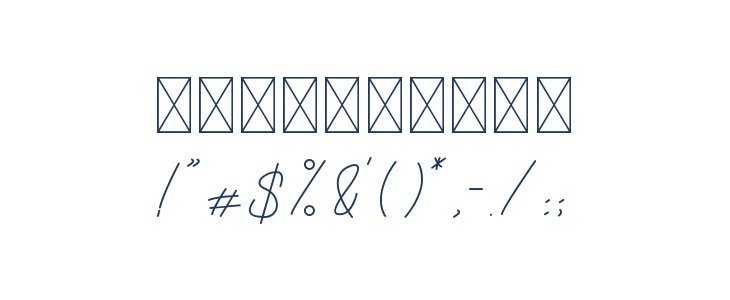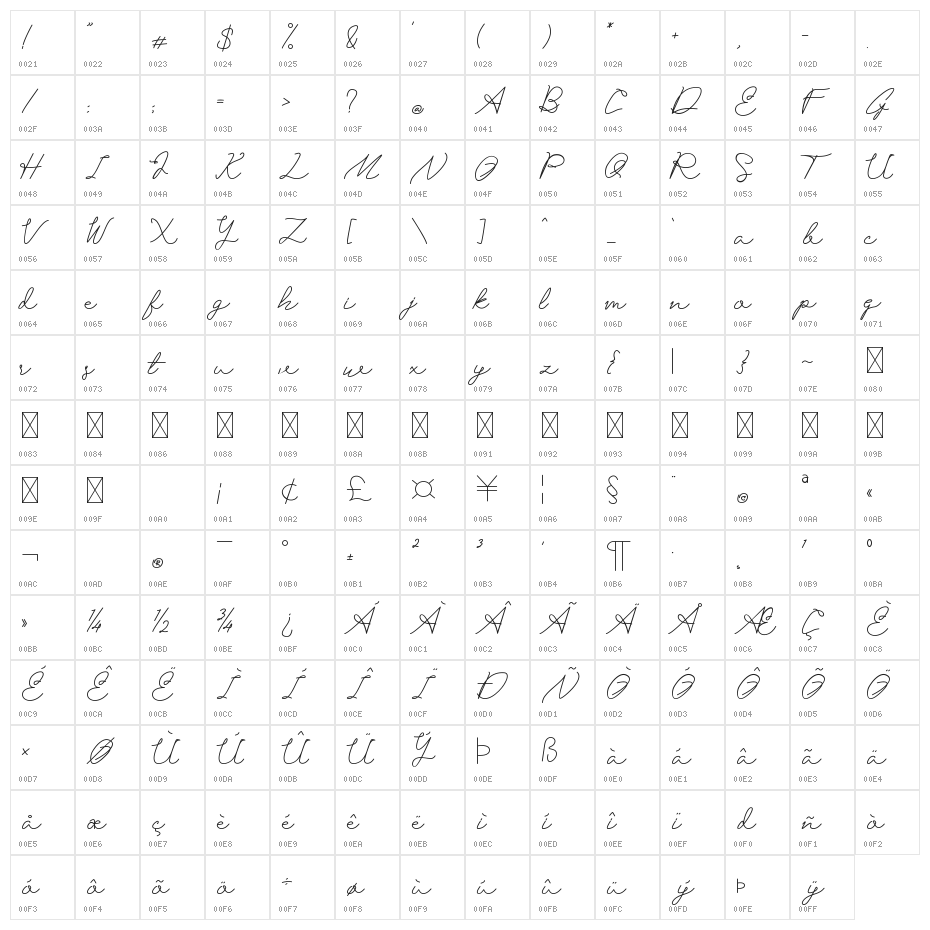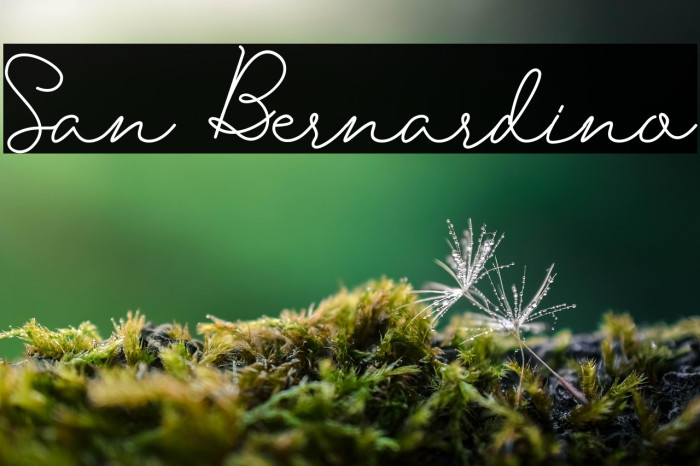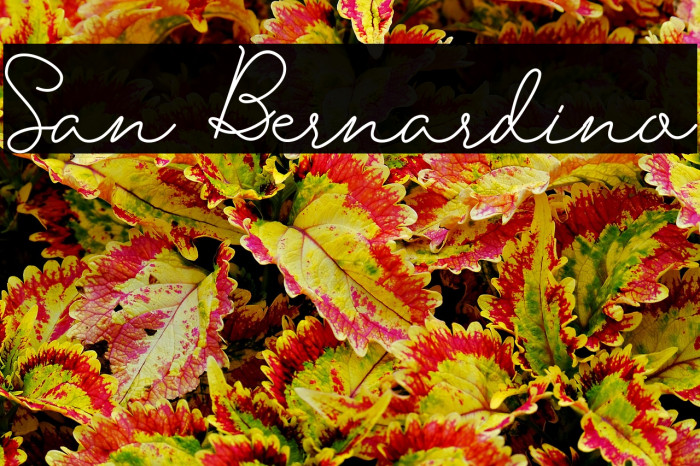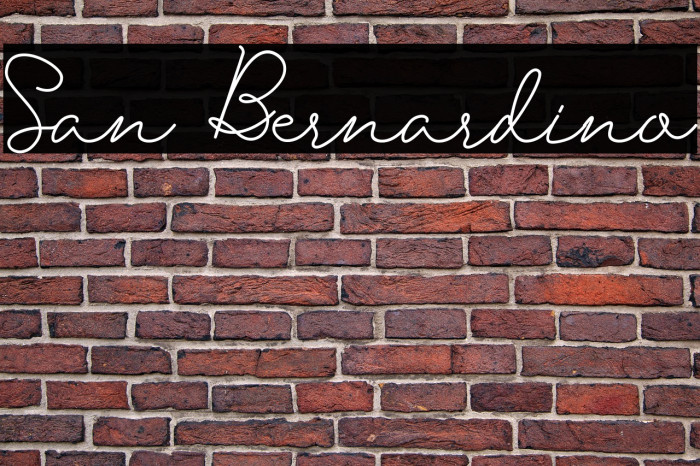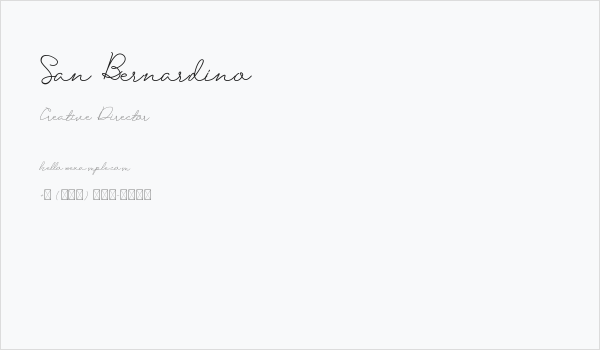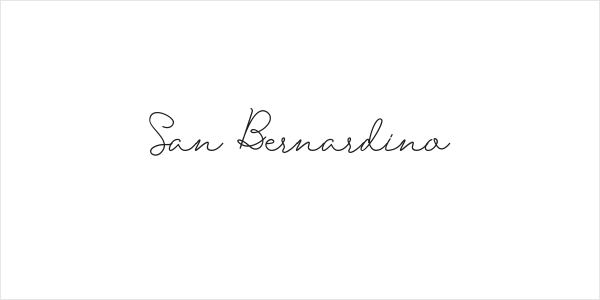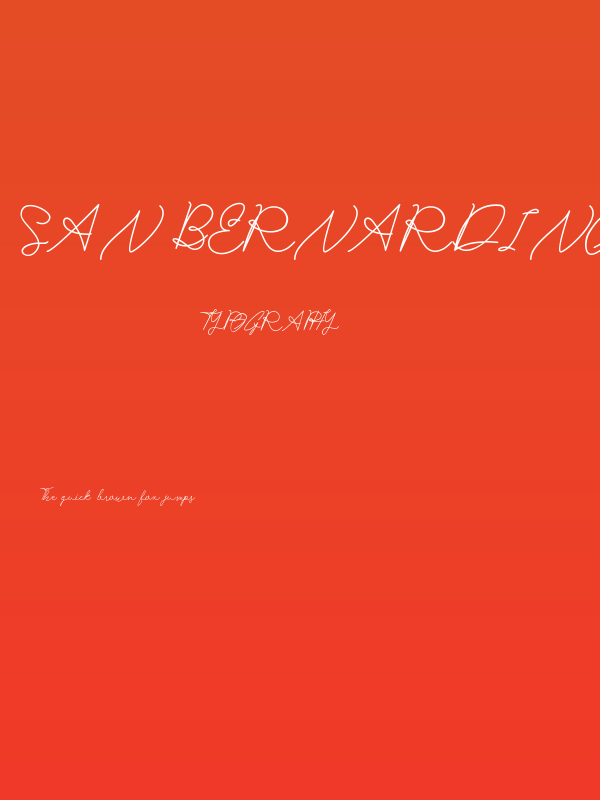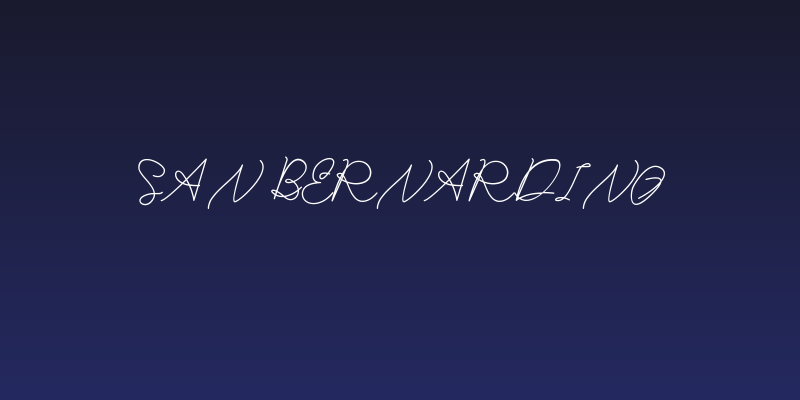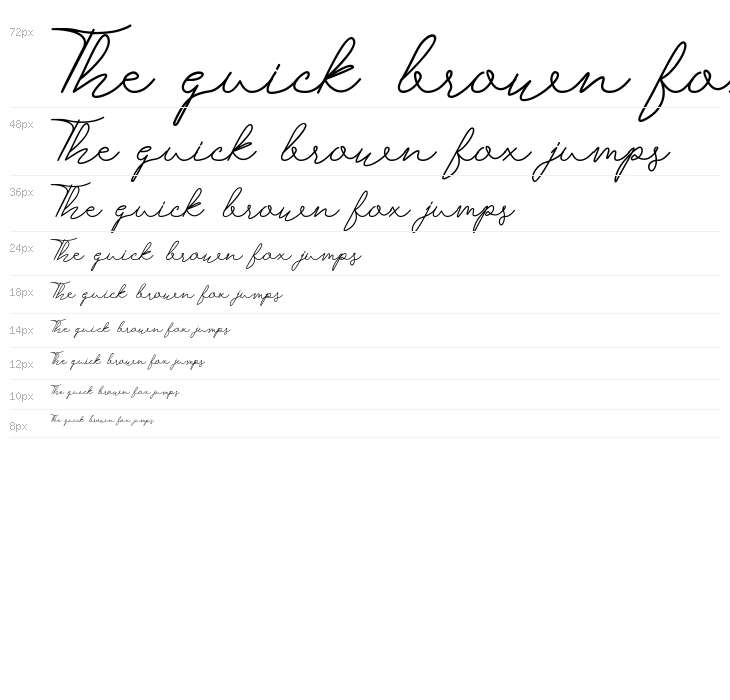
San Bernardino Font
San Bernardino Description
This elegant script font features fluid, connected strokes that mimic the natural flow of handwriting. The uppercase letters are slightly more ornate, with graceful loops and curves, while the lowercase letters maintain a consistent, smooth line. The font's thin lines and delicate curves give it a refined and sophisticated appearance, making it suitable for formal invitations, elegant branding, and artistic projects. The characters are well-spaced, ensuring readability while maintaining the script's fluidity. Special characters are seamlessly integrated, maintaining the font's cohesive style.
Overall StyleElegant
Use CaseInvitations, Branding, Artistic projects
Proposed ProjectsIdeal for wedding invitations, elegant branding, personal stationery, and artistic designs.